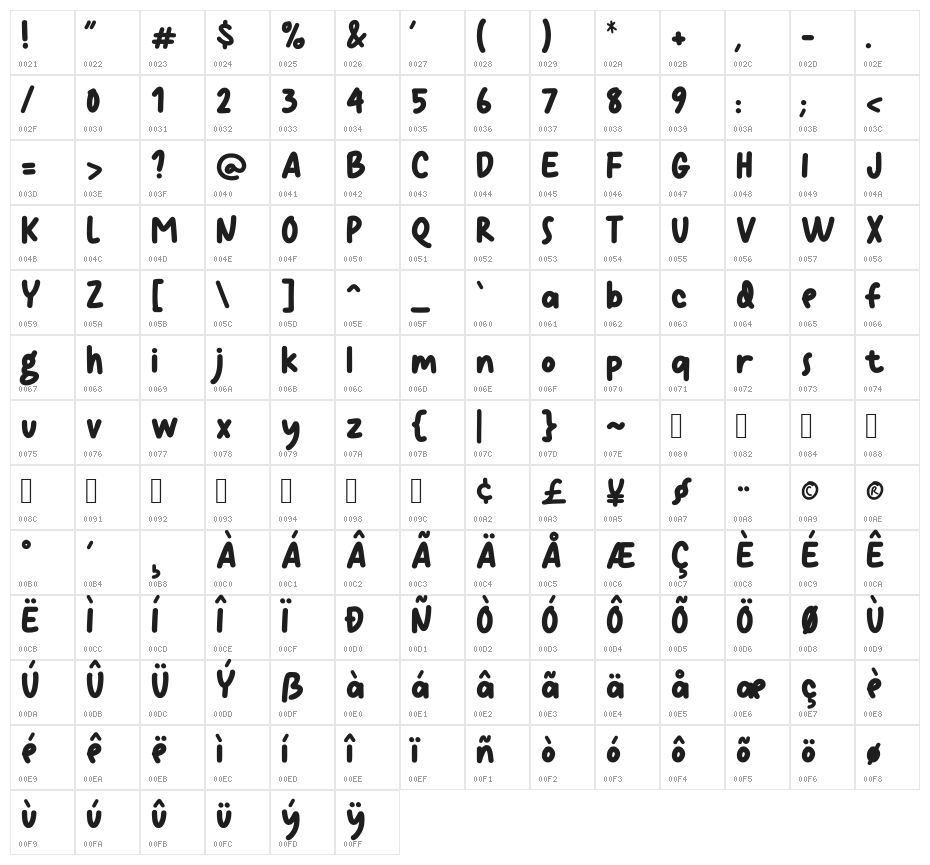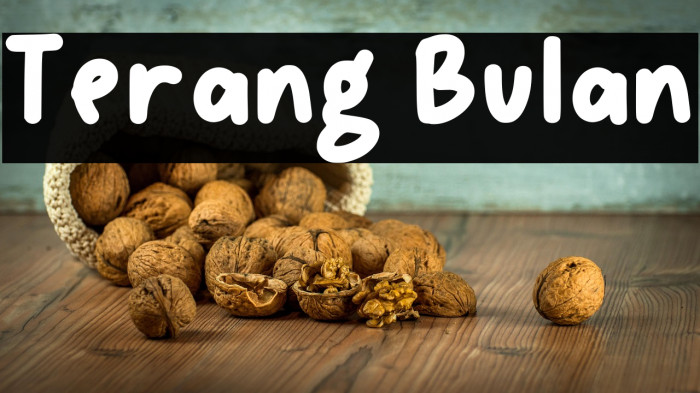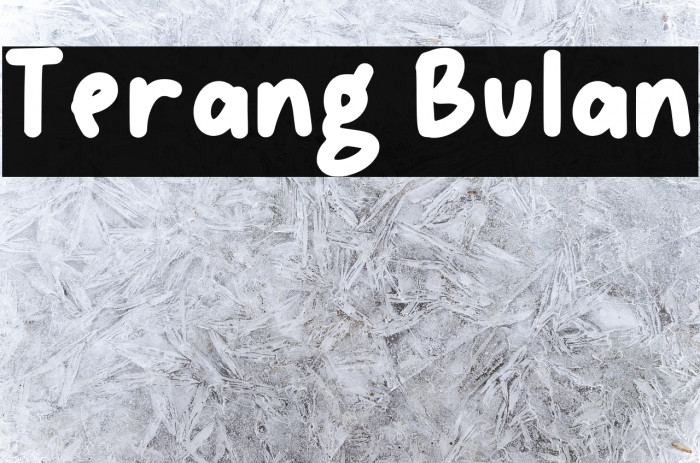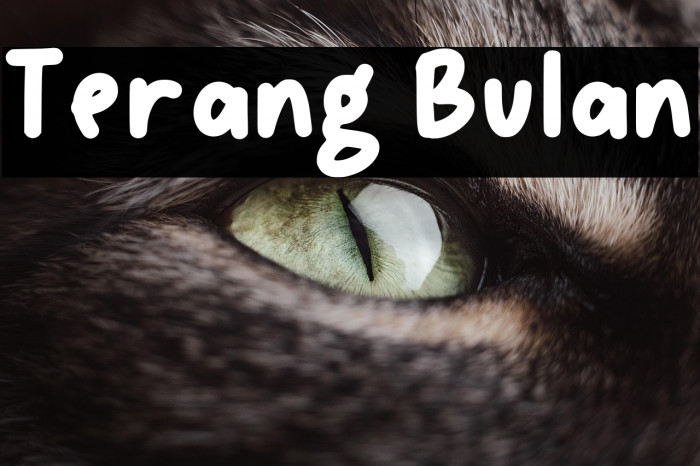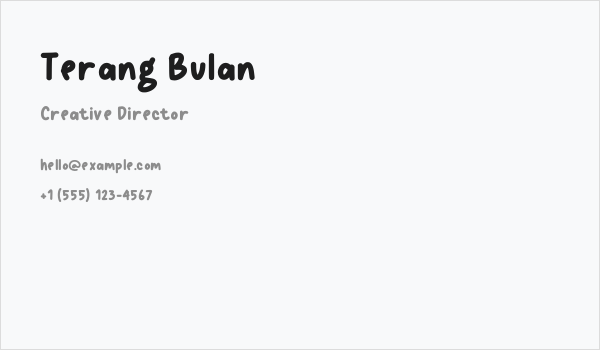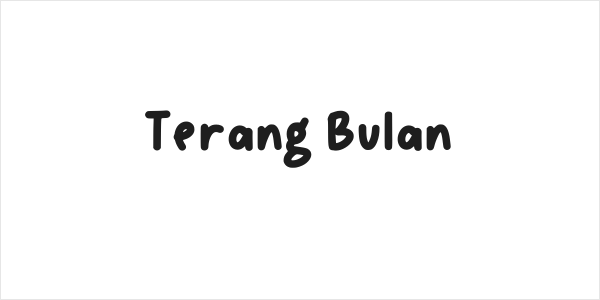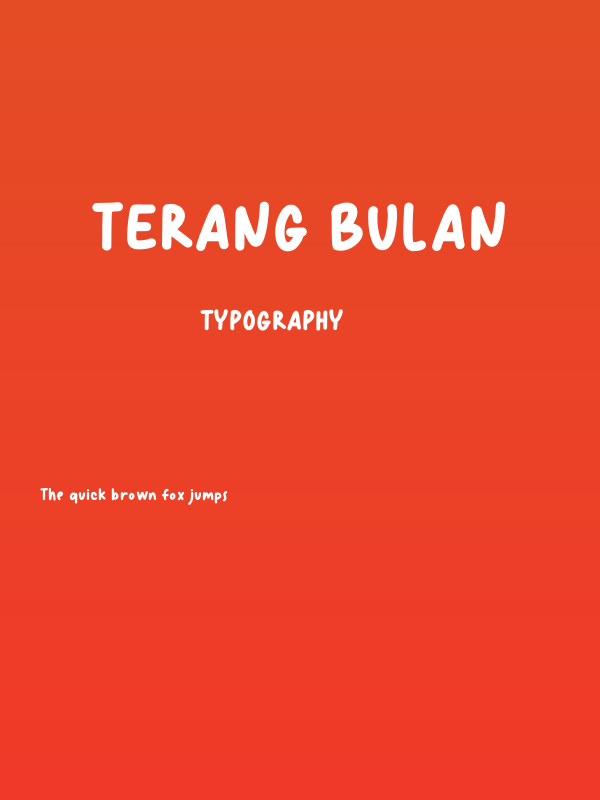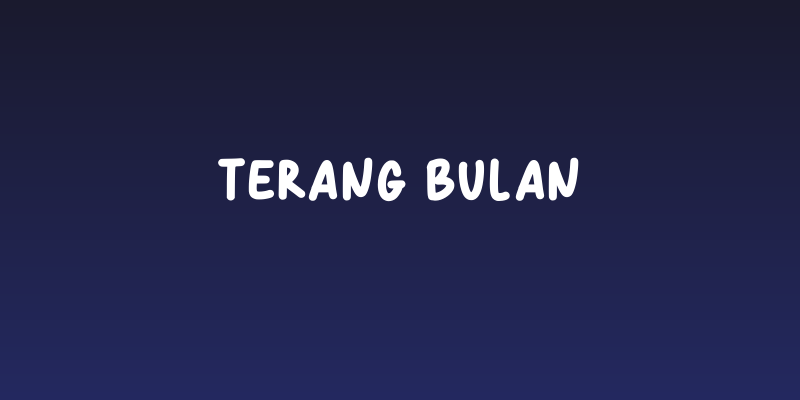
Terang Bulan Font
Terang Bulan Description
A playful, bold handwritten font with rounded edges and a casual style.
| Proposed Projects | Children's books, casual branding, playful posters. |